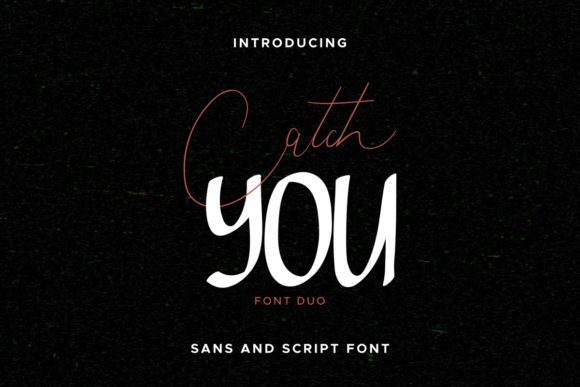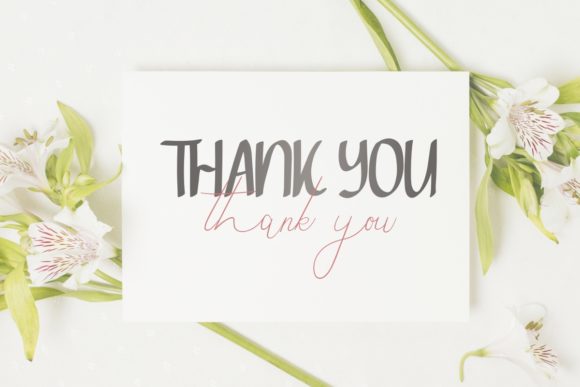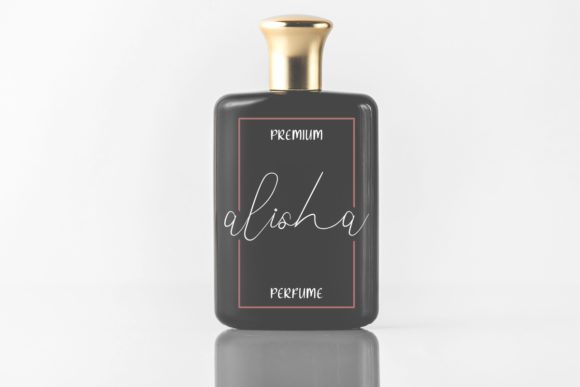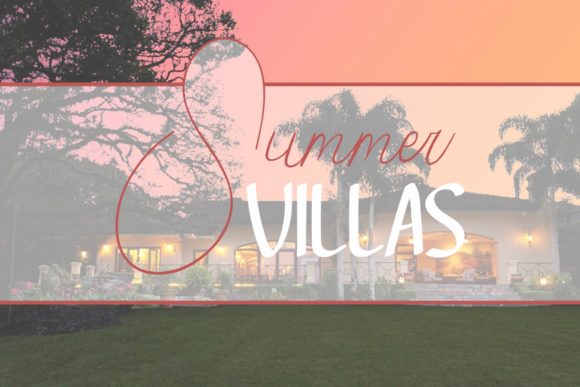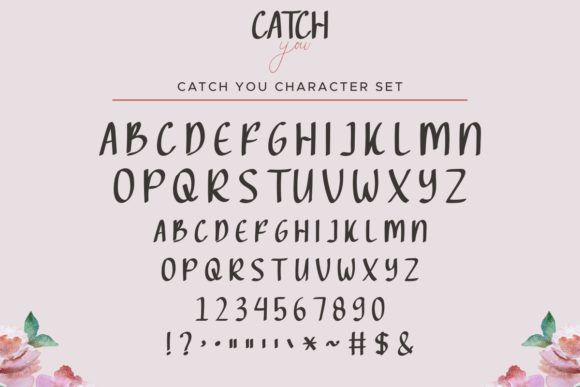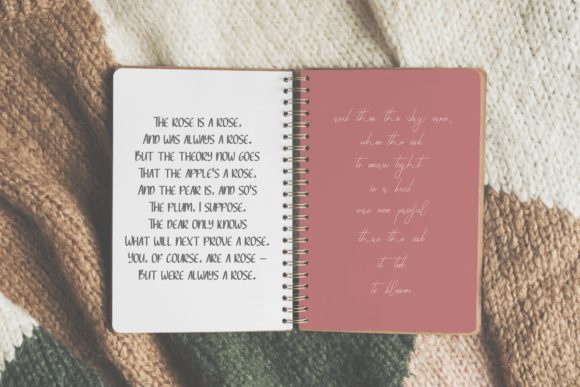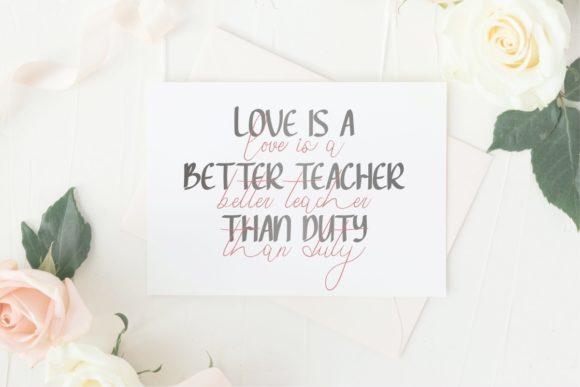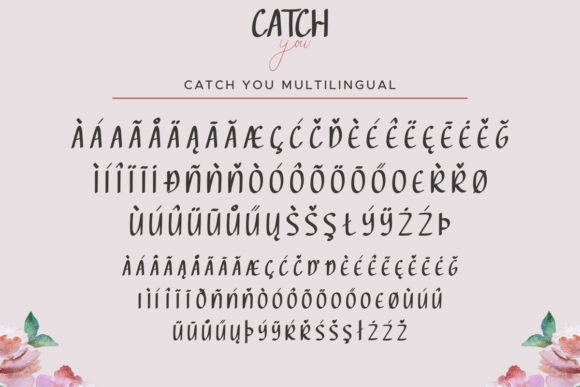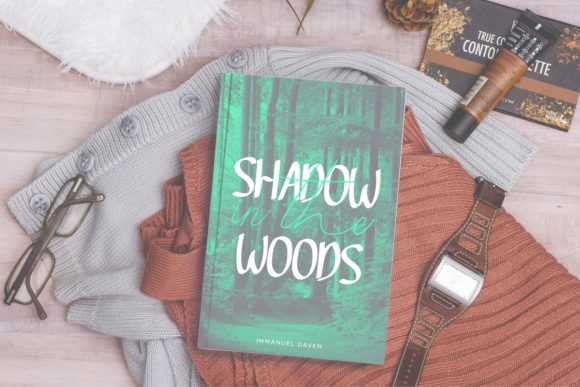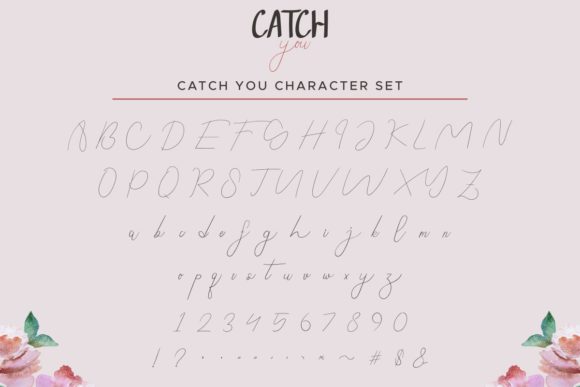
Catch You Font
About Catch You Font
Catch You is a delightful duo font that combines a handwritten style with a complementary display font. With its relaxed and trendy vibe, this font is the perfect addition to your fonts’ library. Its versatility allows it to be used for a wide range of creative projects, making it a valuable asset for designers and enthusiasts alike.
The handwritten font in Catch You exudes a casual and natural feel. Its organic strokes and irregular letterforms give it a unique and personal touch, perfect for adding a handcrafted look to your designs. Whether you’re designing greeting cards, social media graphics, or personalized stationery, the handwritten font will bring a sense of authenticity and warmth to your creations.
Complementing the handwritten font is the display font, which adds a touch of sophistication and style. With clean lines and distinctive letter shapes, the display font is perfect for headlines, logos, and other attention-grabbing elements in your designs. Its versatility allows it to be used in both digital and print media, ensuring that your message stands out.
When using Catch You, feel free to experiment with different combinations of the handwritten and display fonts. The contrasting styles can be layered, mixed, or used separately, allowing you to create unique and eye-catching compositions. Add flourishes, swashes, or other decorative elements to further enhance the visual appeal of your designs.
Catch You is designed to bring a relaxed and trendy vibe to your creative projects. Its versatility and charm make it suitable for various design applications, from branding and packaging to social media graphics and invitations. With Catch You in your fonts’ library, you’ll have the tools to make your designs stand out and capture attention.
So, confidently add Catch You to your fonts’ library and let its relaxed and trendy style elevate your creative projects. Whether you’re a professional designer or a passionate enthusiast, Catch You will be a valuable asset in your creative toolkit. Let your imagination run wild and enjoy the beautiful outcome of using Catch You in your designs.